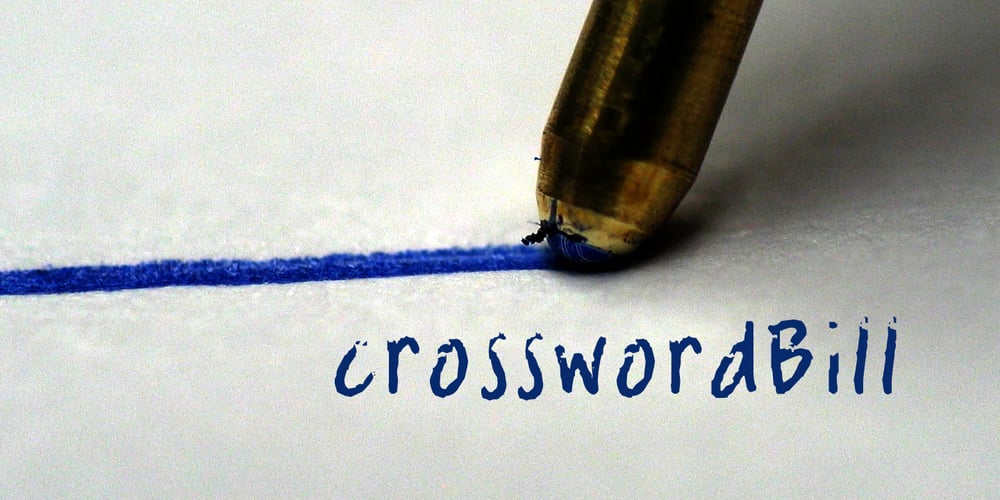
CrosswordBill Font Family was designed by Jeroen “Joebob” van der Ham and published by JOEBOB graphics. CrosswordBill contains 1 styles and family package options. CrosswordBill was created by scanning a finished crossword puzzle, done with a failing ballpoint. A complete character set with numbers and most (but not all) special signs.